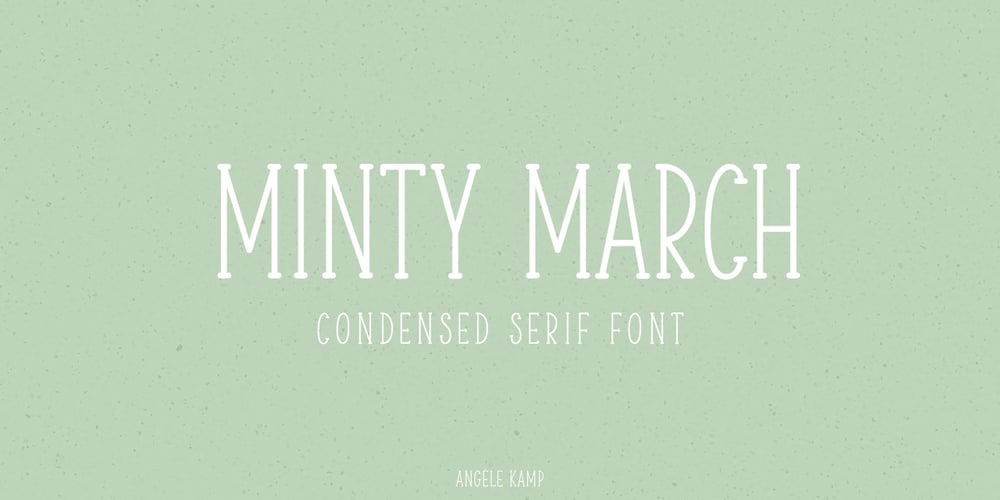
Minty March Font Family was designed by Angele Kamp and published by Angele Kamp. Minty March contains 1 styles and family package options. Minty March is an adorable handwritten font that is perfect for cards, invites, birthday invitations and more. This condensed, serif also works well when combining it with a script font.